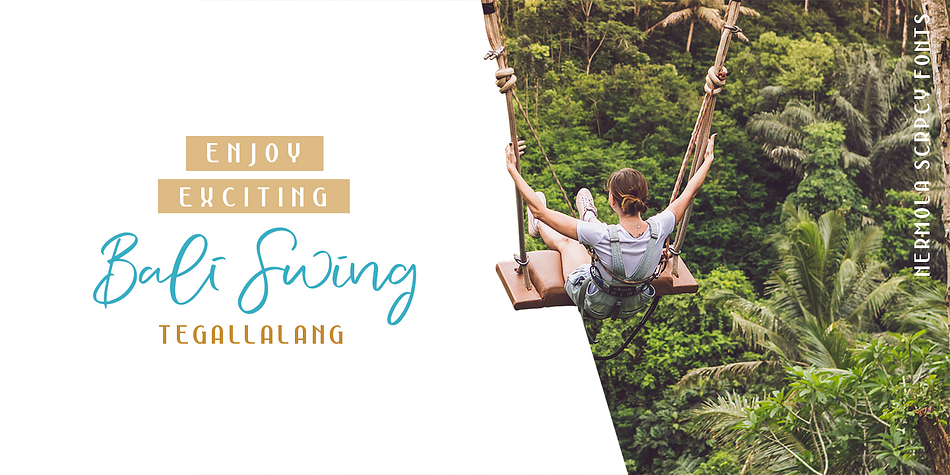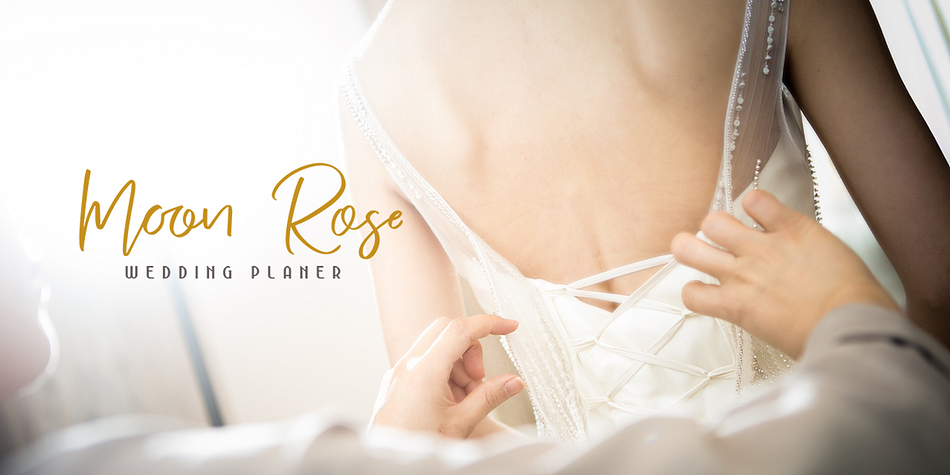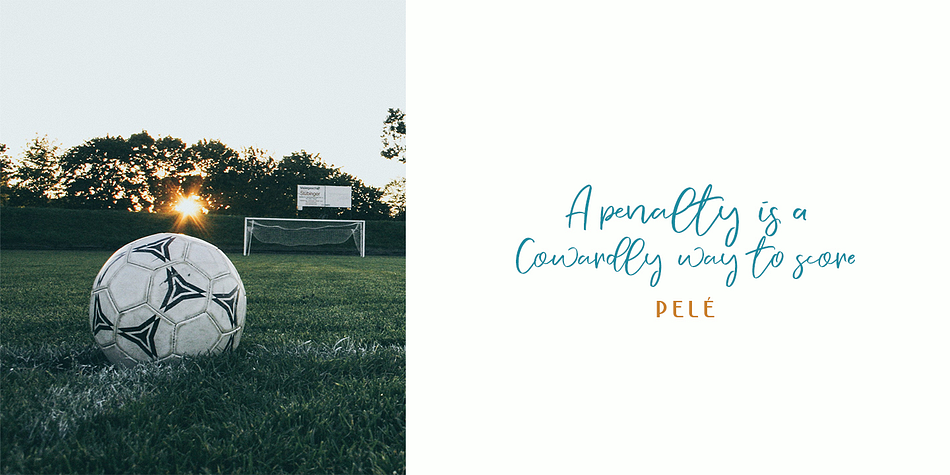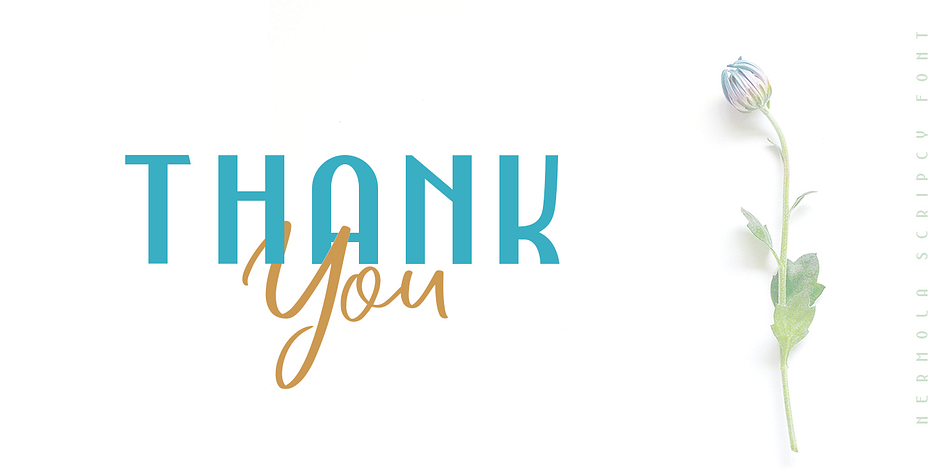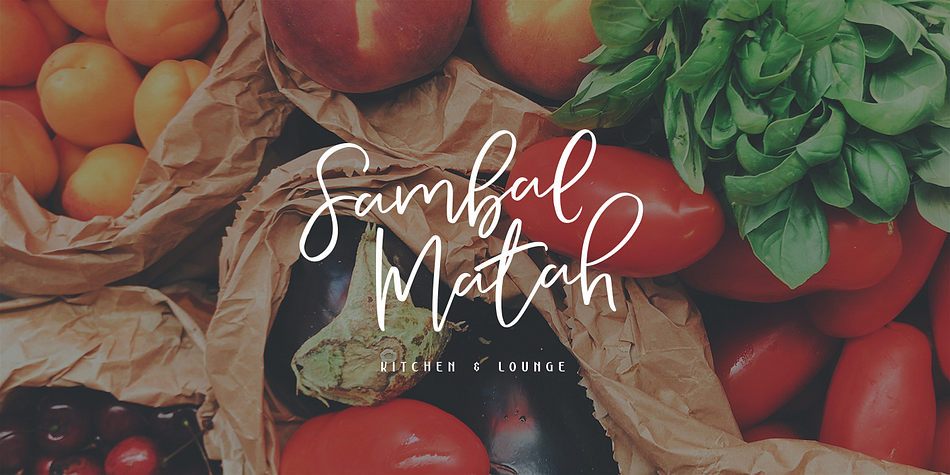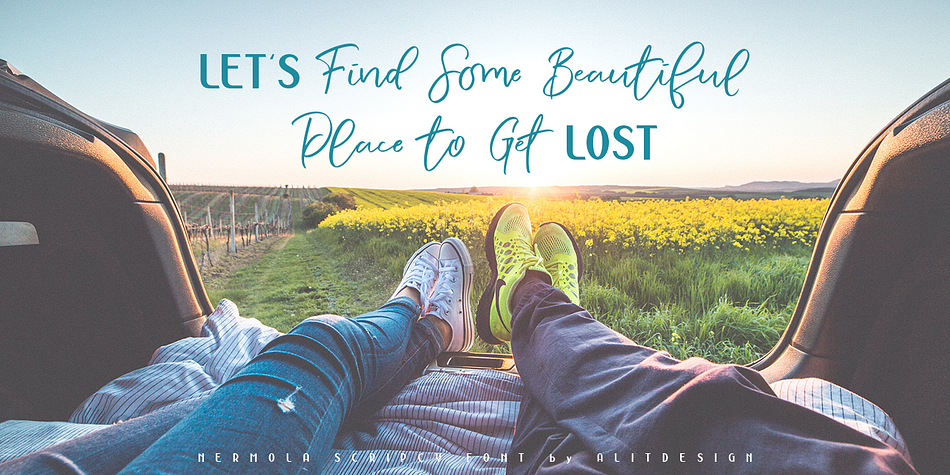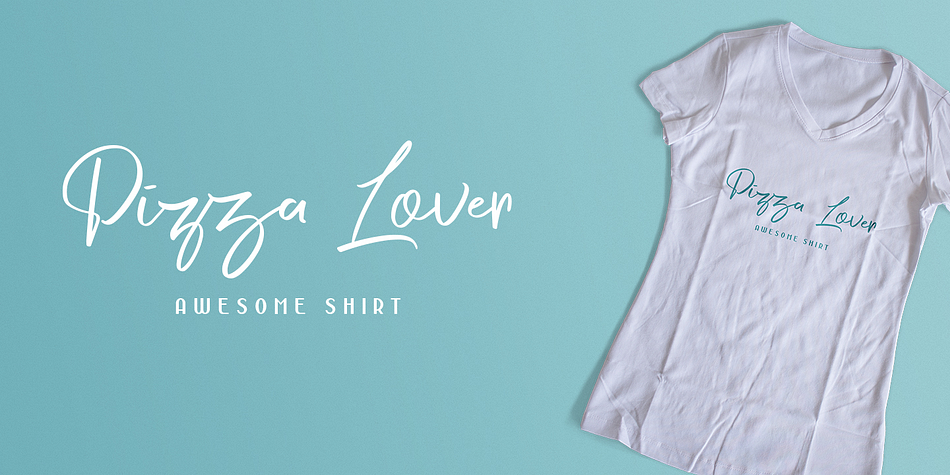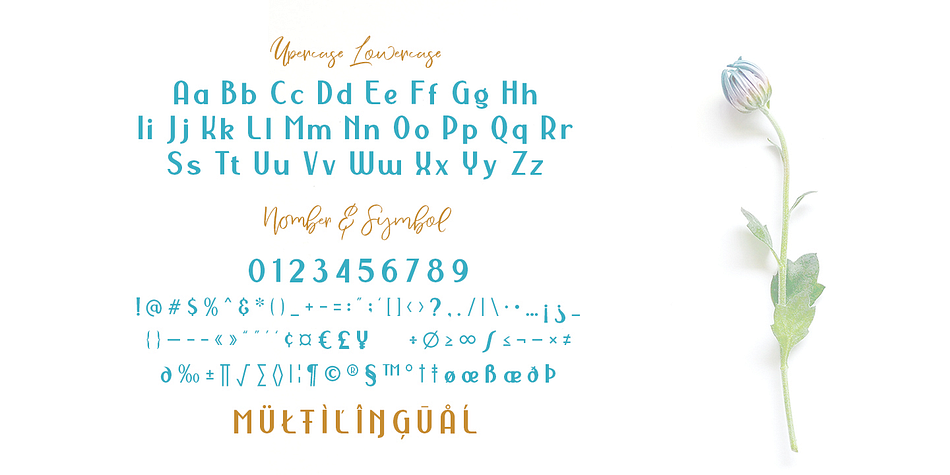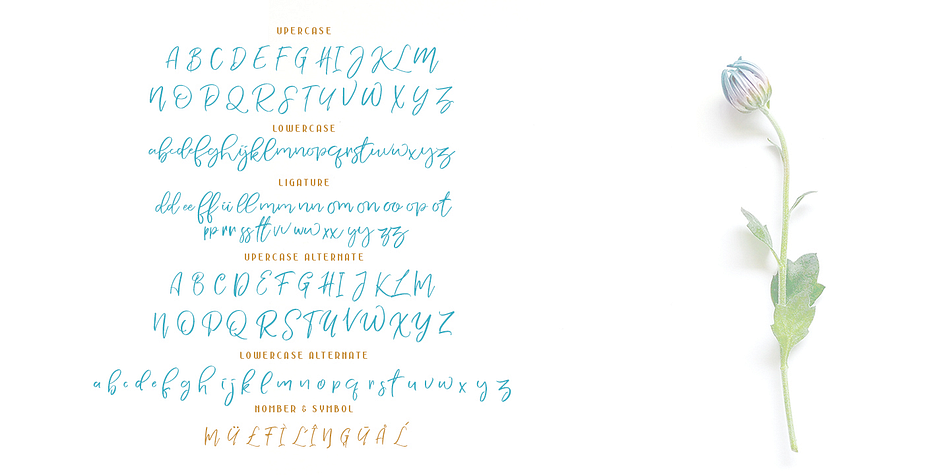
Nermola Scripcy Font is a display sans, modern calligraphy and script font family. This typeface has three styles and was published by Alit Design.
The rise of font duo in the market makes us also do not want to be left behind to play in the font duo. The font duo that we launch is sans serif style and signature script style.
Nermola Scripcy font on sans serif has characteristic that are unique, elegant, formal and assertive. It is suitable for header or sub header of a text. On the uppercase it looks very unique and elegant. While the script letters also have a unique and natural characteristic. In addition it has several alternatives that can be replaced on the opentype option.
Nermola Scripcy font is perfect you have as an additional reference and collections in your font library. Because it is suitable for the design of logotype design, the design has an elegant and romantic concept, and for the design of lettering quote.